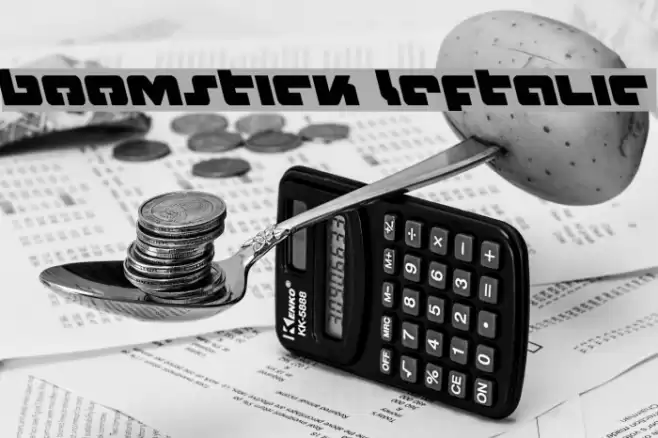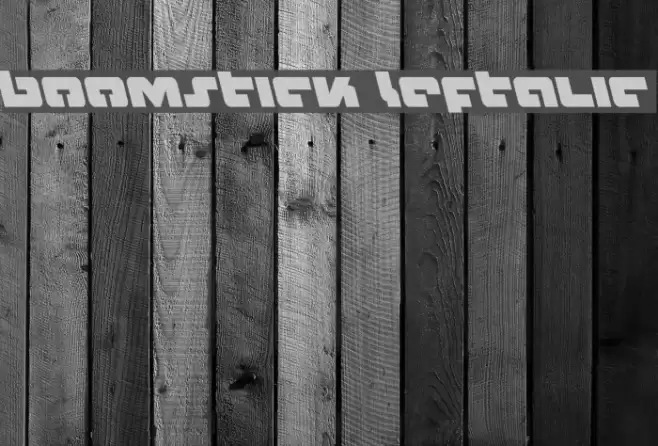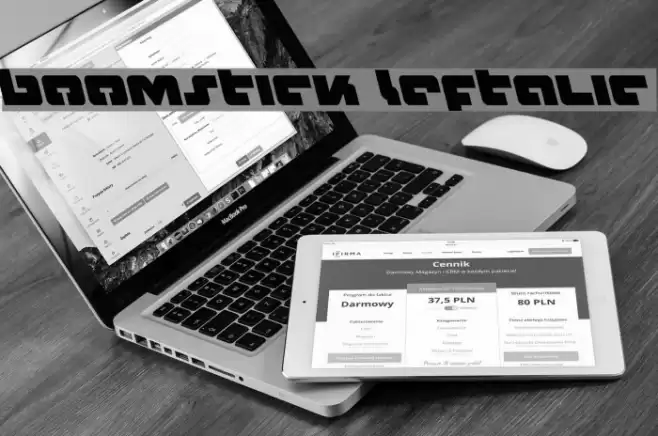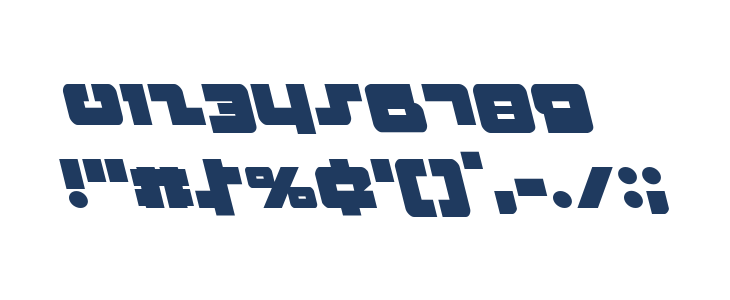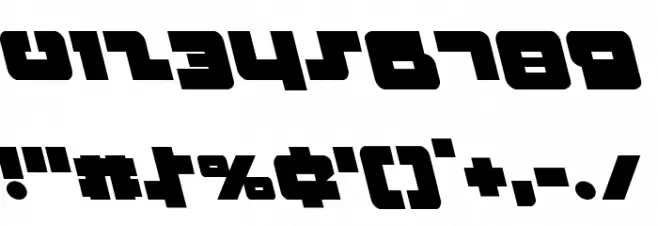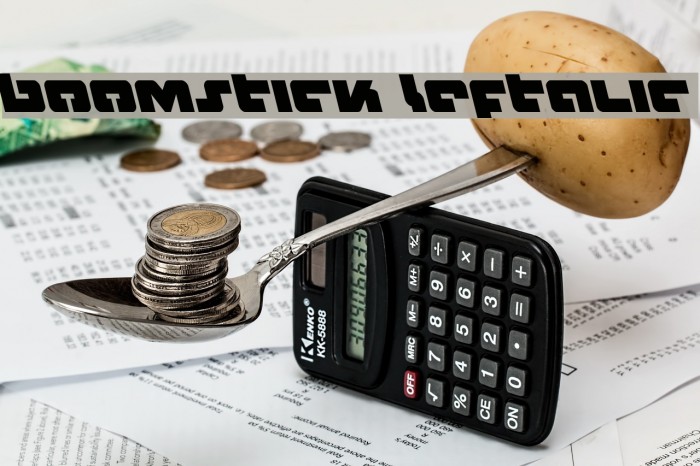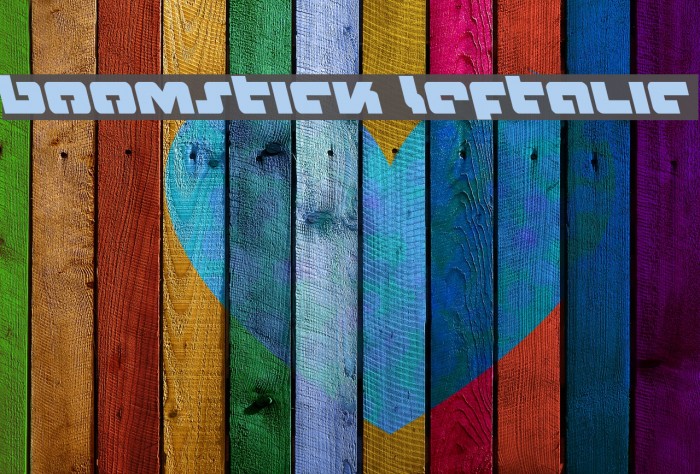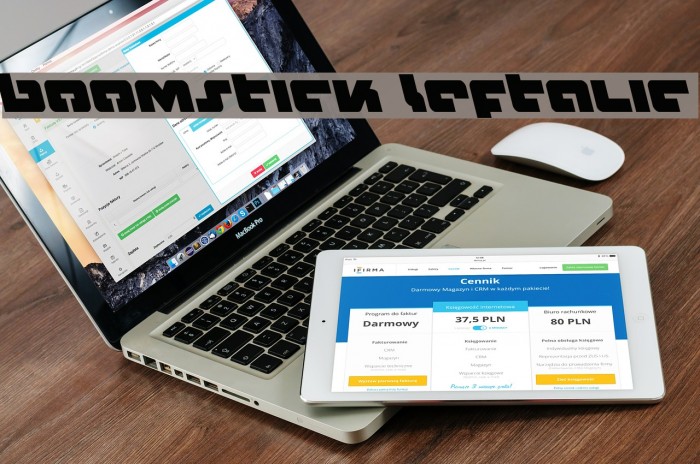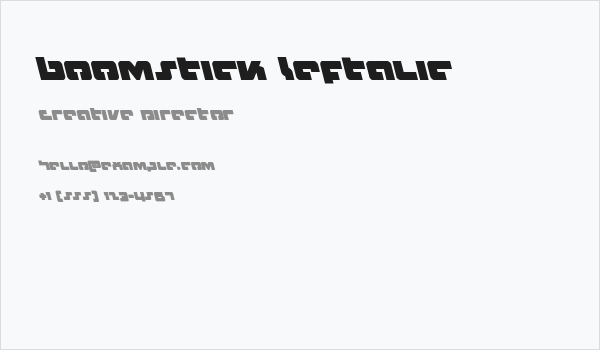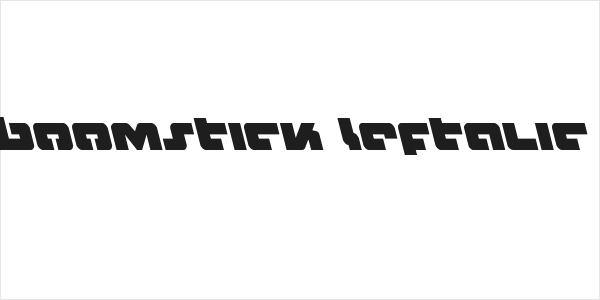
Boomstick Leftalic Font
Boomstick Leftalic Description
This font features a bold and angular design with a futuristic and dynamic appearance. The characters are heavily stylized with sharp edges and a blocky structure, giving it a distinctive and modern look. The letters are slightly slanted, adding a sense of motion and energy. The font maintains a consistent weight throughout, with minimal contrast in stroke thickness. It is designed to capture attention and make a strong visual impact, suitable for projects that require a bold statement.
A bold, angular, and futuristic font with a dynamic slant from Sci-fi fonts.
- Proposed Projects: Ideal for video game titles, sci-fi movie posters, technology branding, and sports team logos.